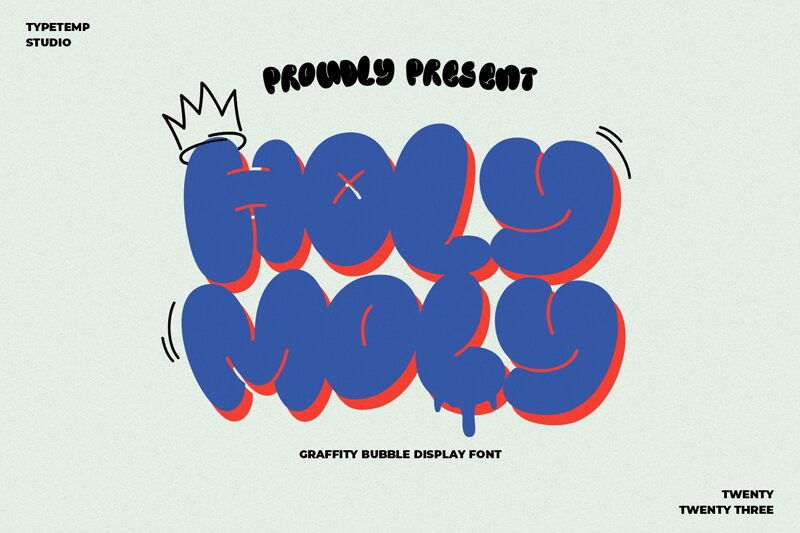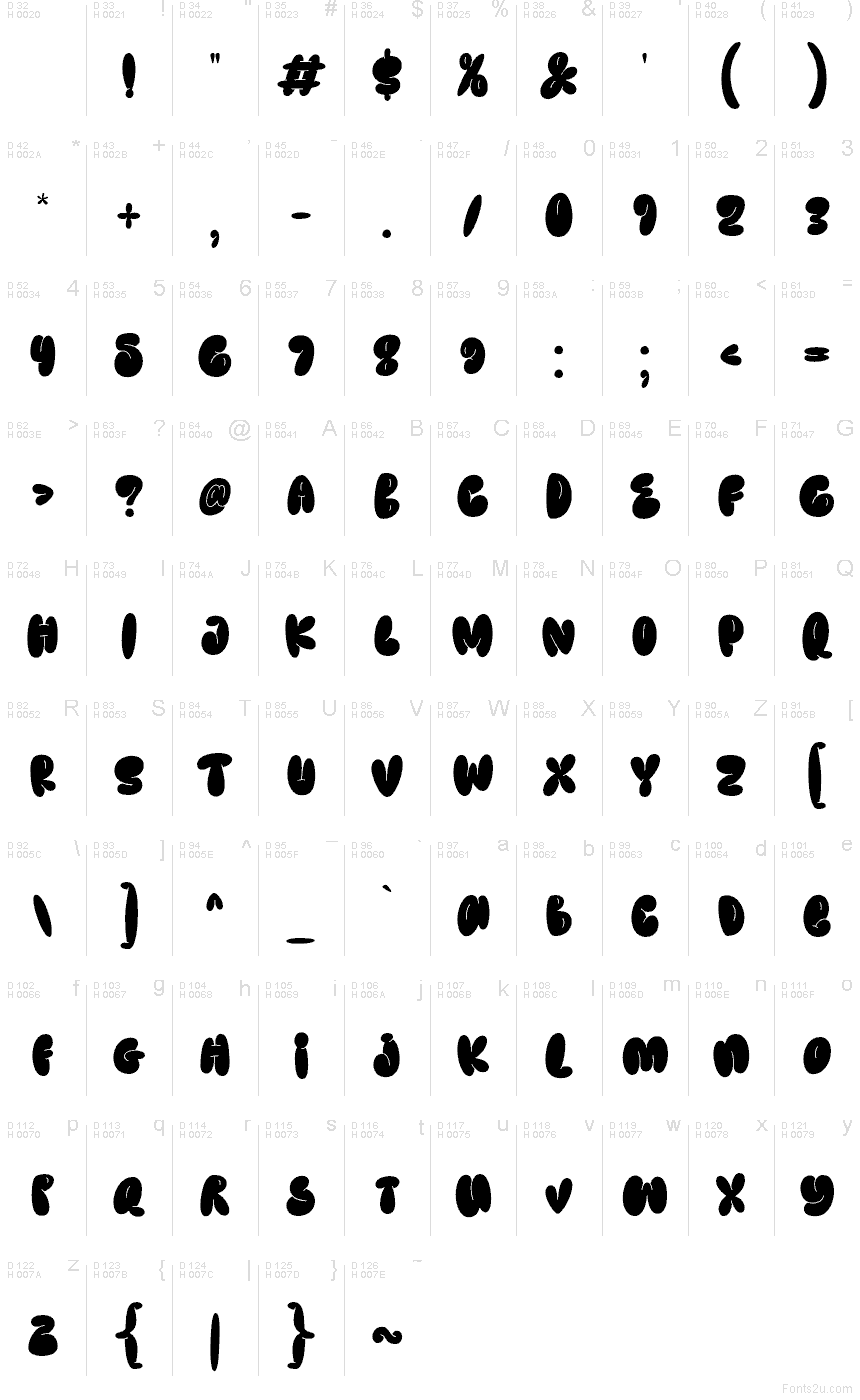
Holymoly Display font by Typetemp Studio is a free graffiti typeface that turns every word into a chunky, inky bubble of attitude. Part of the Holymoly family, its letters swell into each other like fresh paint, with smooth curves and tight spacing that feel straight off a mural wall. The heavy, rounded shapes create a bold, almost squishy texture that reads loud and playful rather than harsh or gritty.
Using Holymoly Display, your titles instantly grab attention on streetwear branding, music covers, event posters, skateboard graphics, kids’ products, and bold social graphics. This free font works beautifully when you set it large and give it room to breathe, then pair it with a clean, simple sans serif for body copy to keep everything readable and grounded.